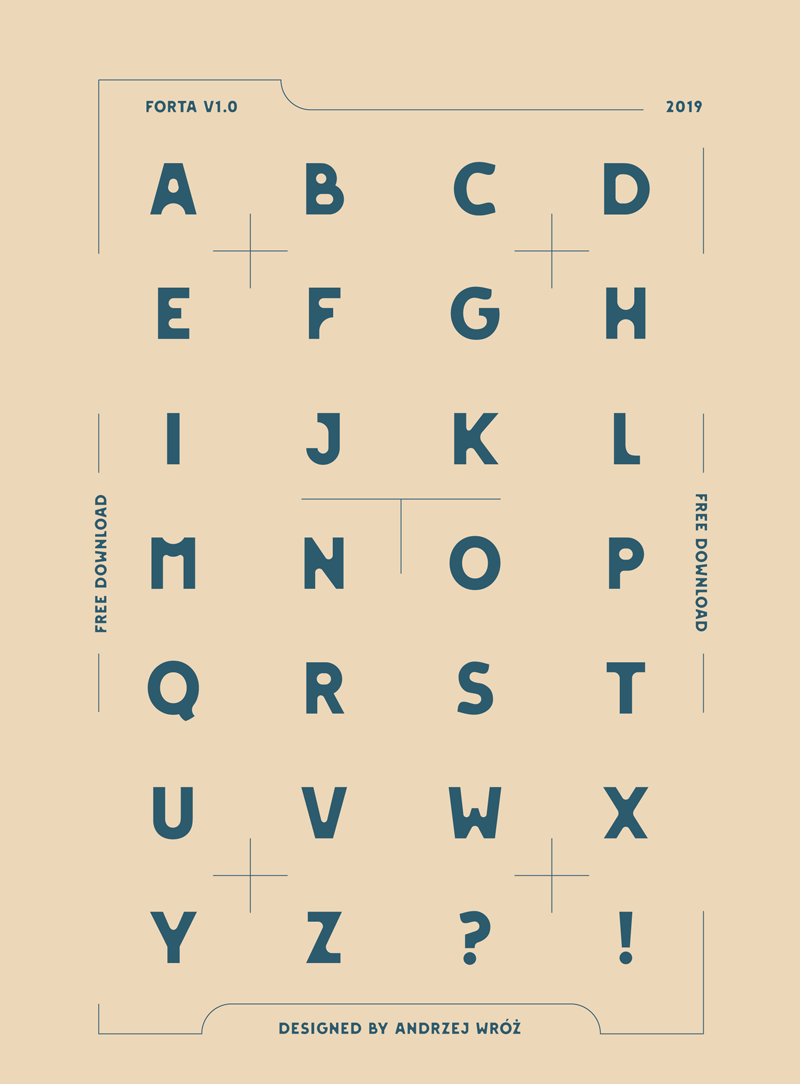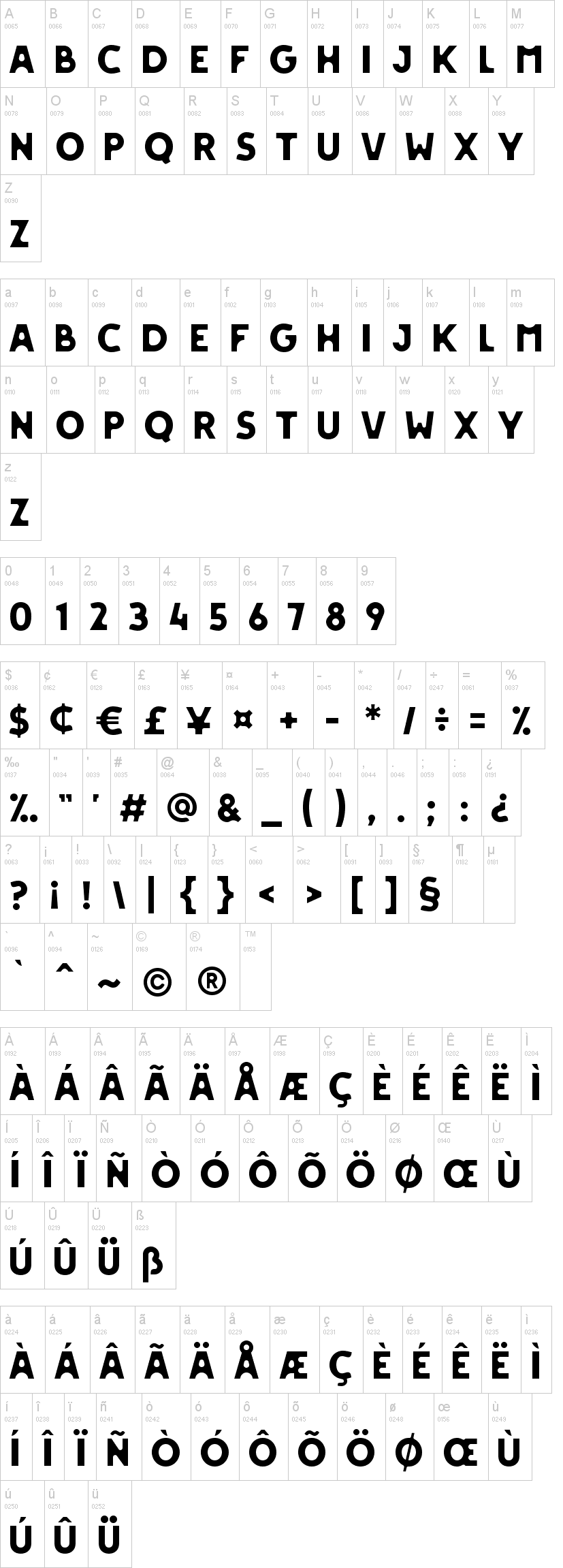
Note of the authorFORTA is a headline font designed by Andrzej Wróż(https://www.behance.net/andrzejwroz), Graphic Designer and Art Director based in Poznań, Poland.
It is all caps font, perfect for headlines, short sentences, logos, posters etc. It combines sharp edges and soft curves into unique, visually appealing shapes. FORTA contains over 190 glyphs and supports over 20 languages.